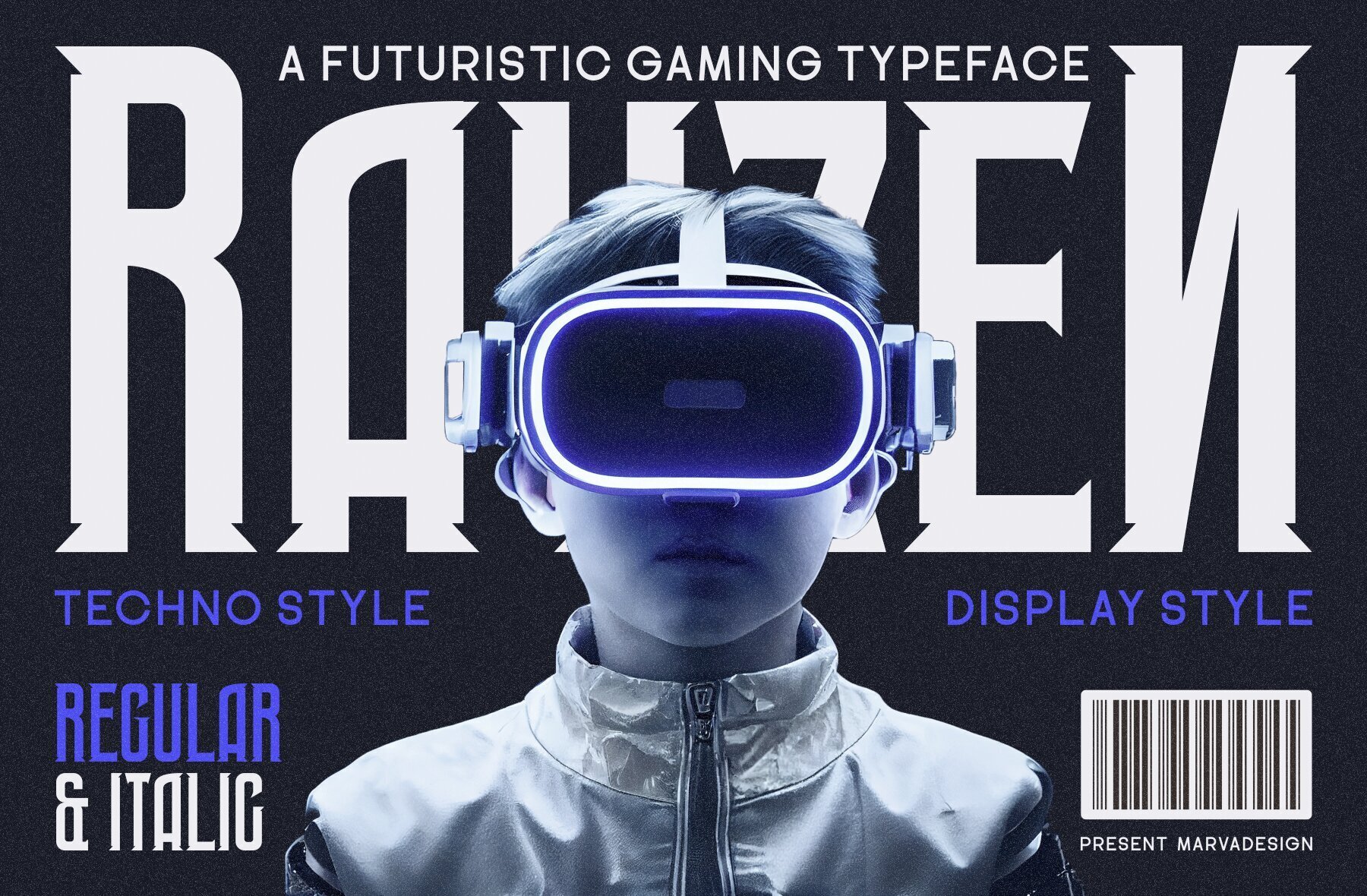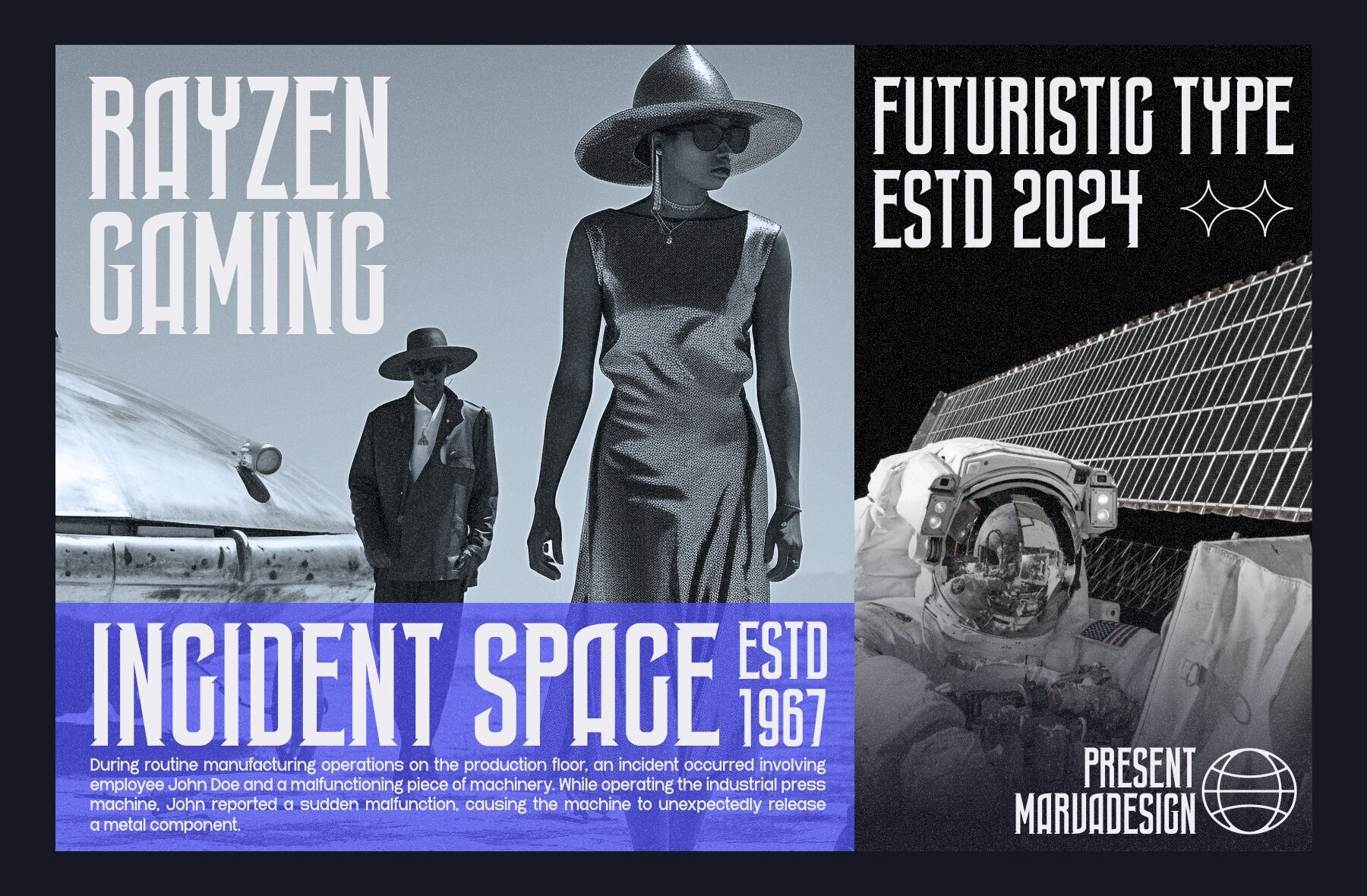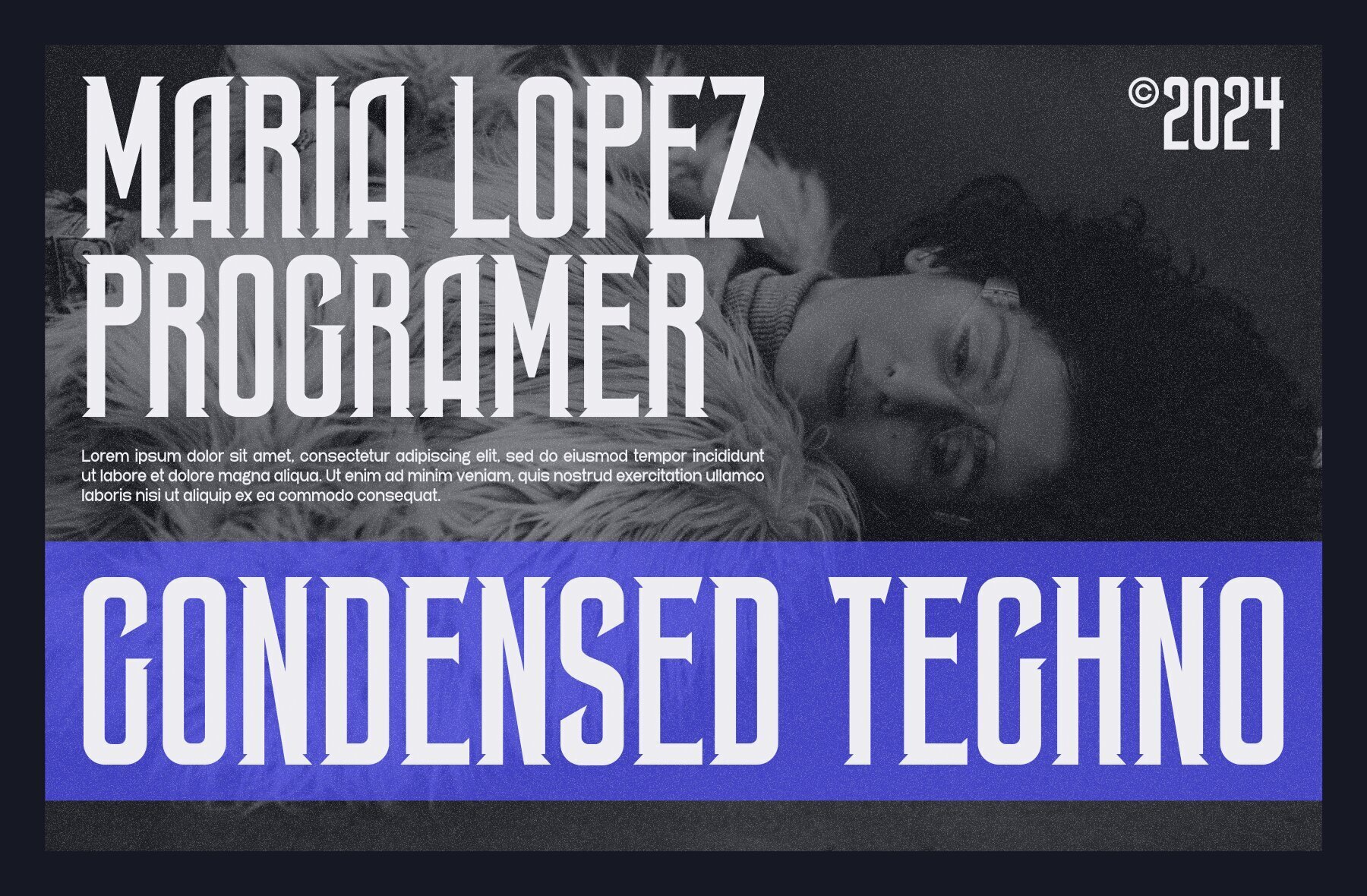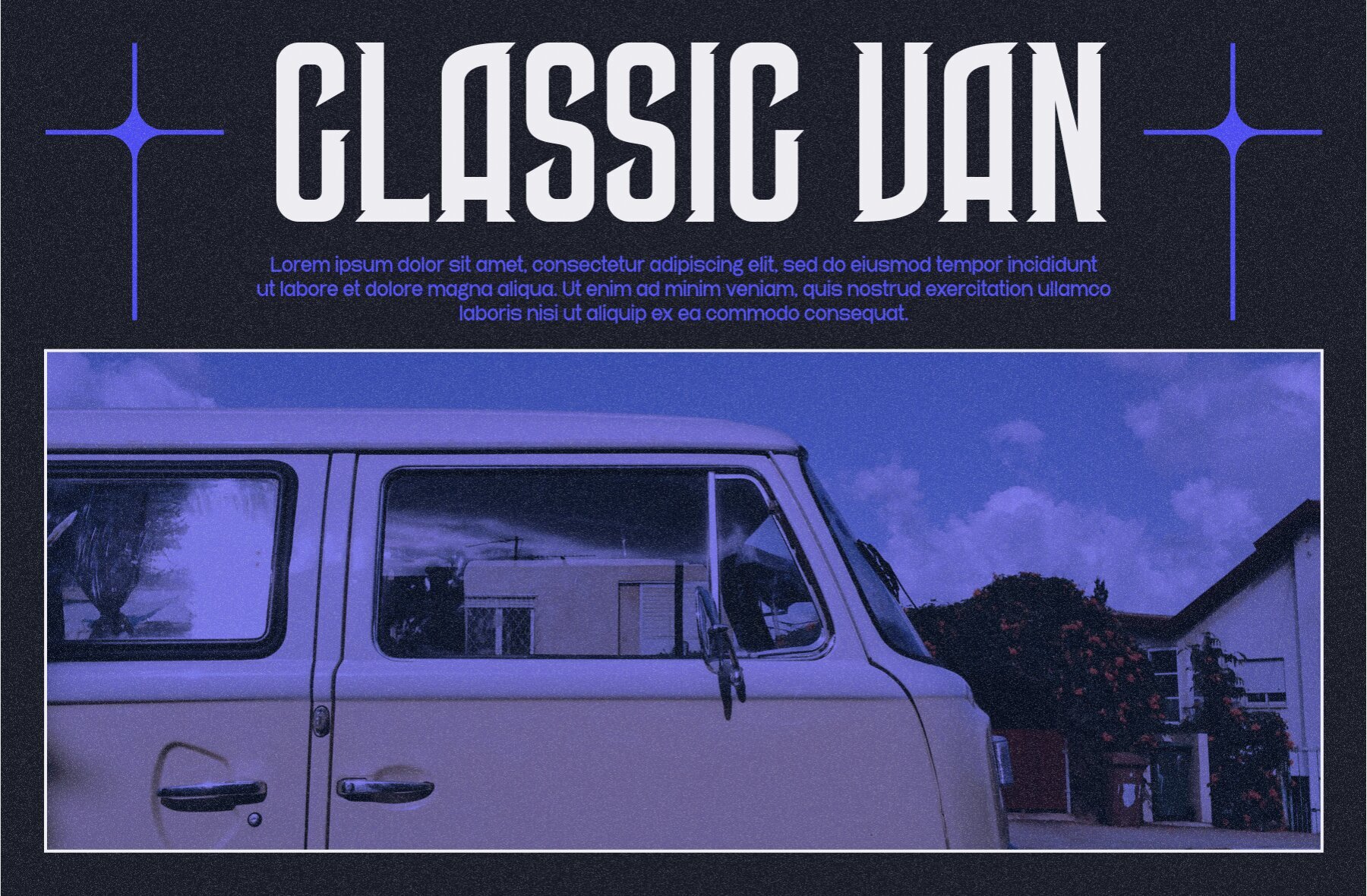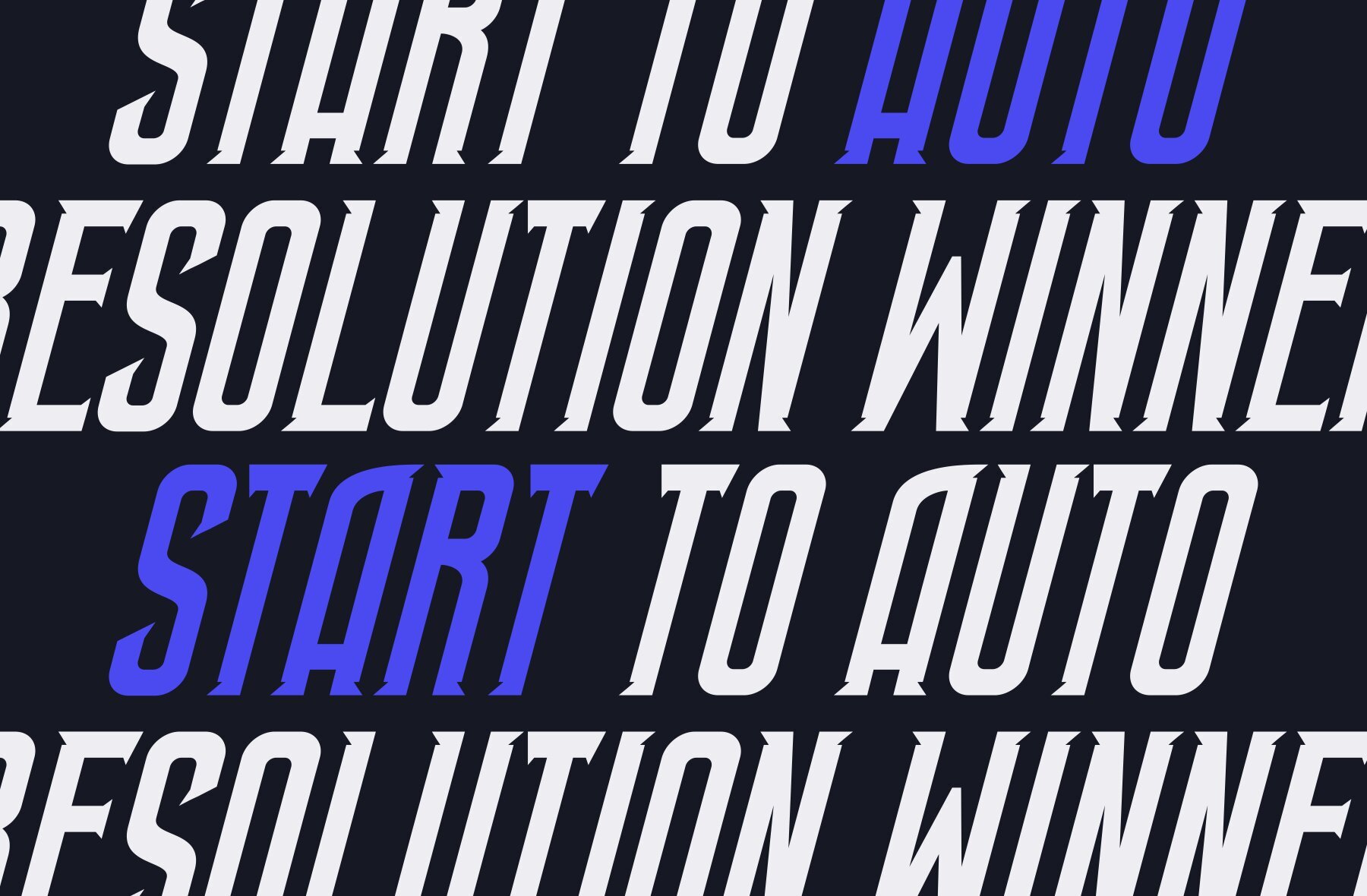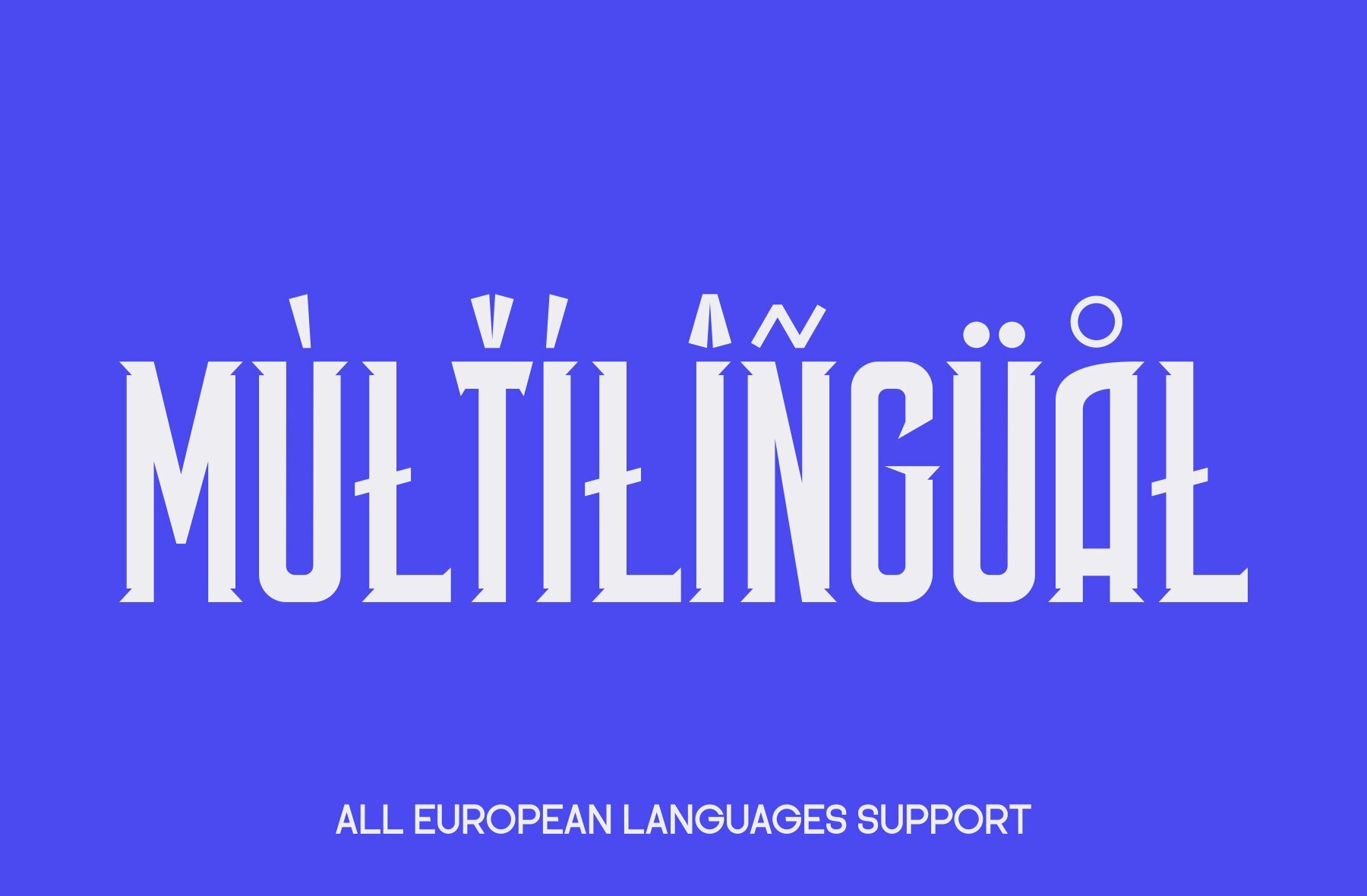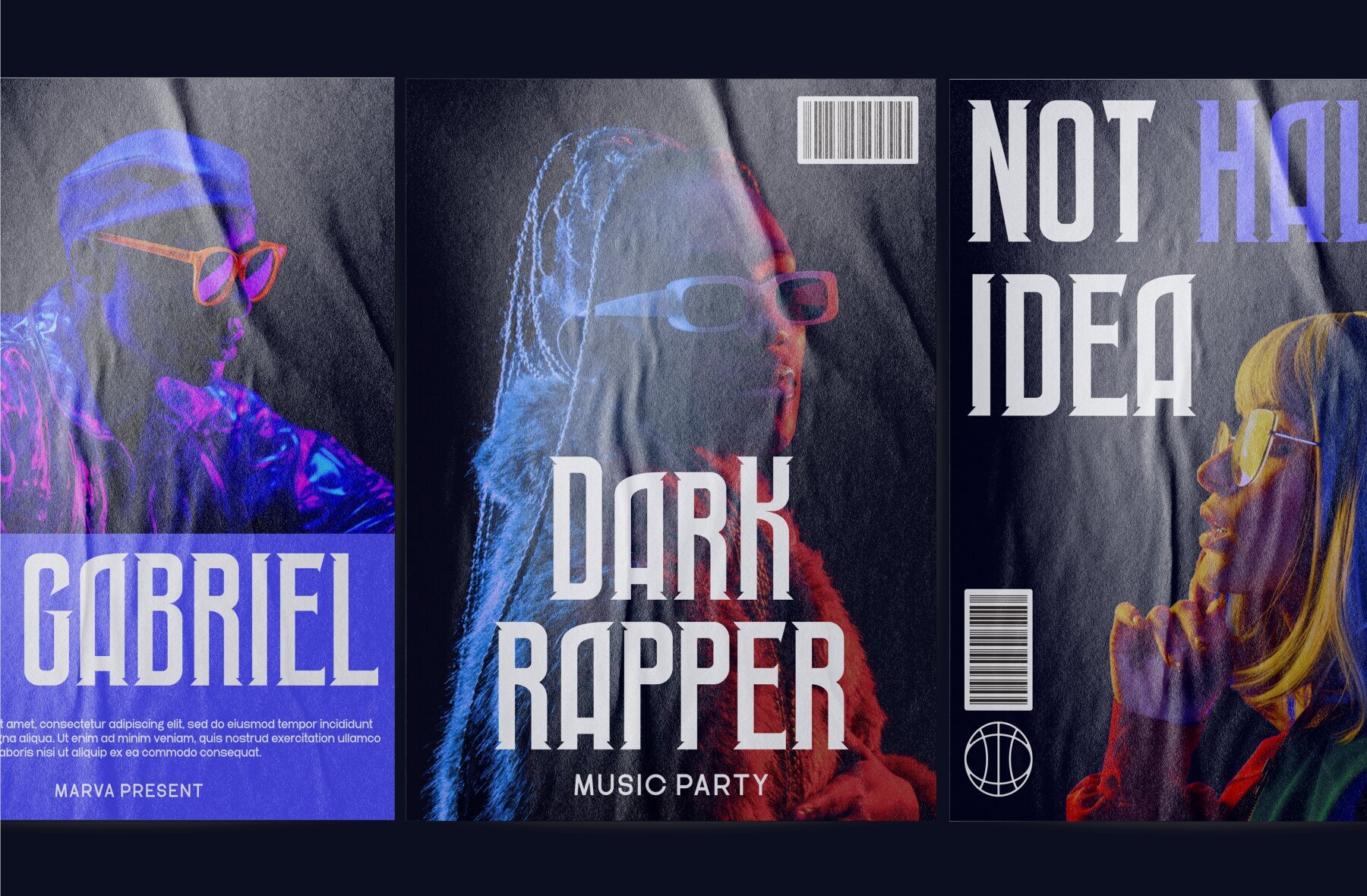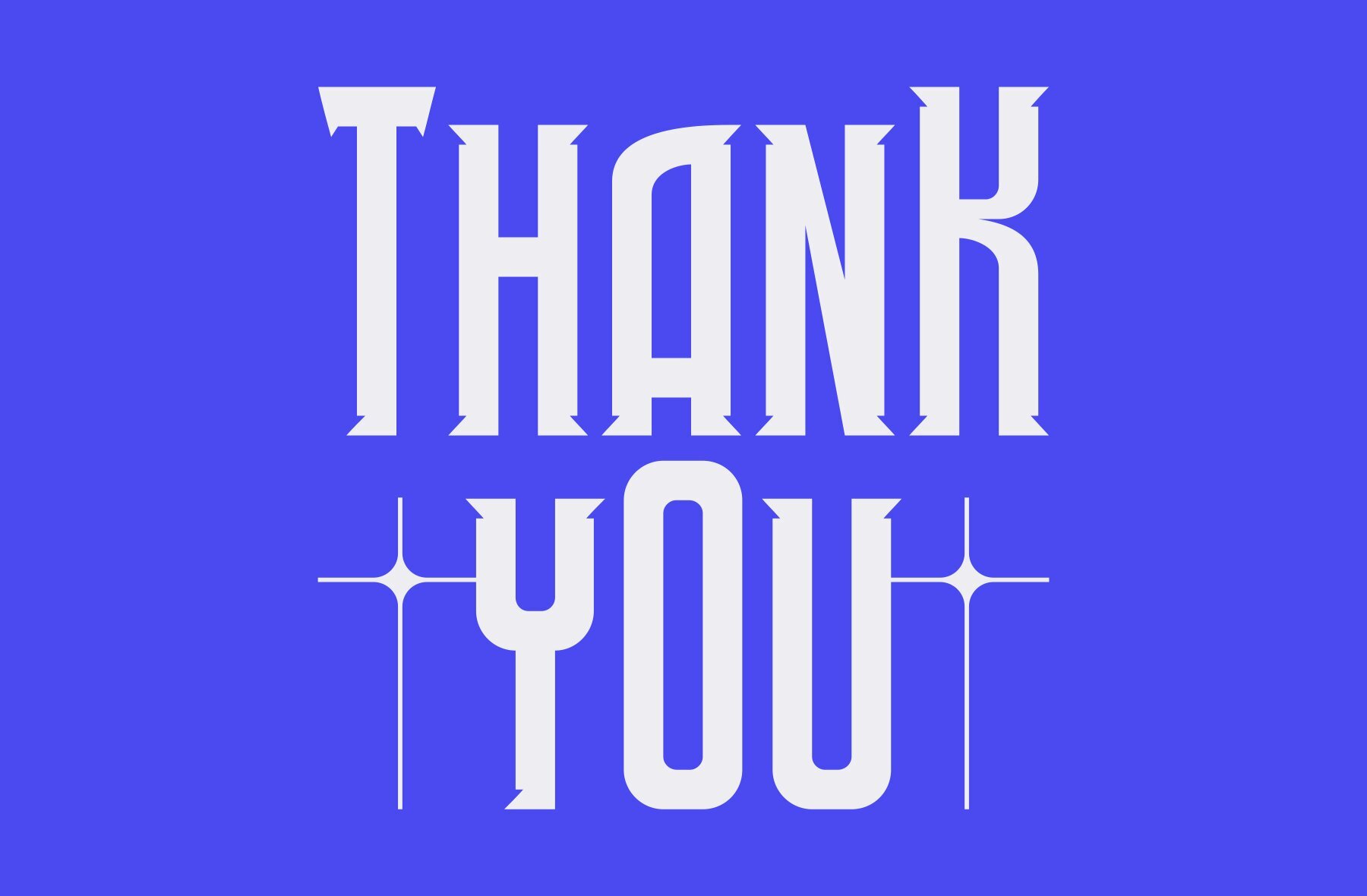
Rayzen Font
Rayzen is a distinctive font designed to elevate your branding across various projects. This futuristic gaming font is ideal for logos, template designs, and products, providing a standout appearance in diverse settings.Rayzen Font: Futuristic Gaming Display